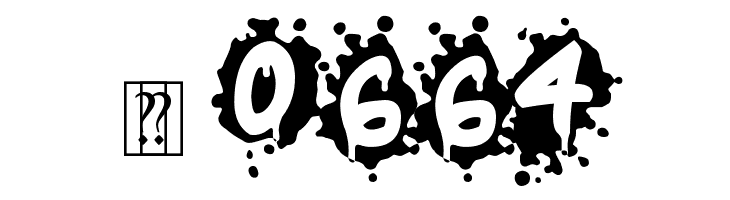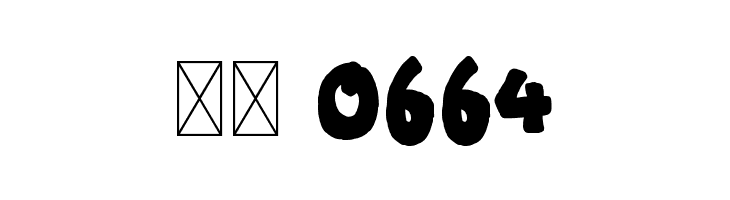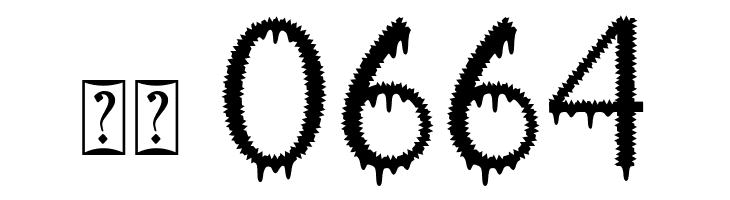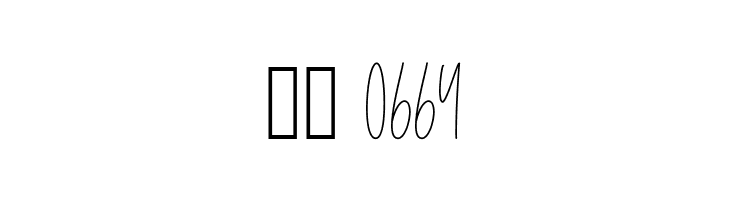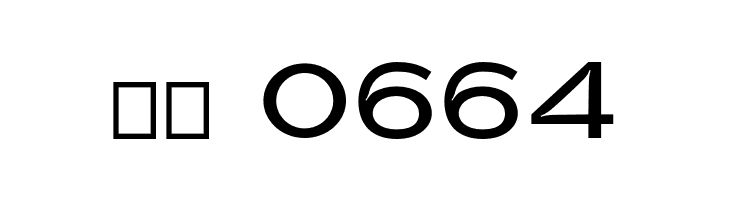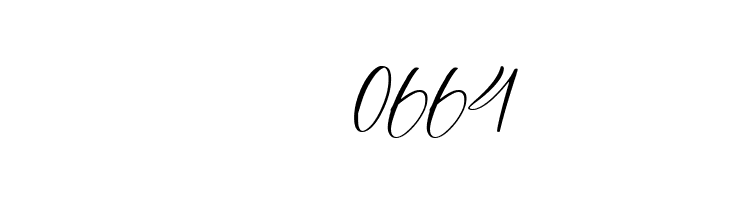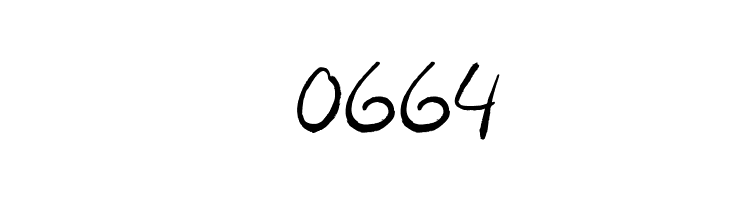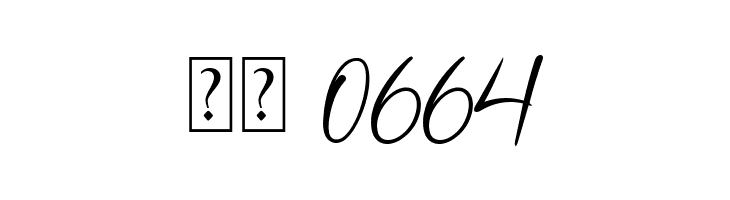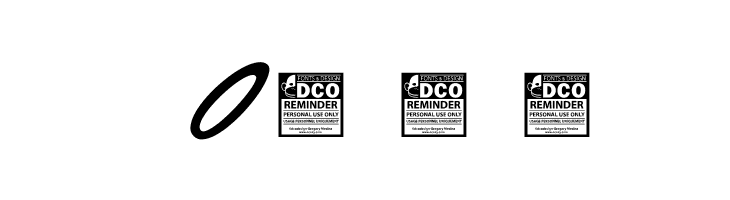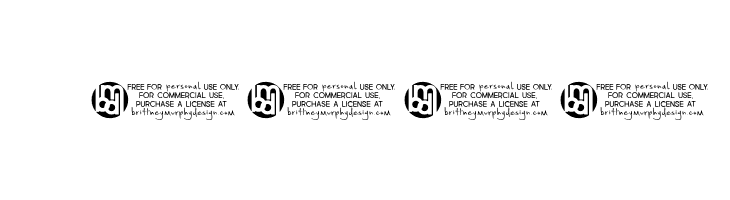
• Spiky Frog Graffiti
A bold, edgy graffiti-style font with sharp, angular shapes.
• Spiritual Lightning
A dynamic, handwritten font with expressive strokes and a fluid style.
• Spooky Adventure
A jagged, dripping font ideal for spooky themes.
• SPOOKY BLUEST
A bold, playful font with a spooky, hand-drawn style.
• Spooky Fright
A bold, jagged, and playful font with a spooky, hand-drawn style.
• Spooky Hollow
A bold, jagged font with a spooky, horror-inspired design.
• Spooky Lucky Solid
A playful, bold, and hand-drawn font with rounded, irregular characters.
• Spooky Mistery
A whimsical, handwritten font with tall, narrow letters and playful strokes.
• Spooky Party
A playful, whimsical font with a spooky flair and unique curves.
• SPOOKY TOMB - Personal Use
A spooky, tombstone-themed font with a playful, hand-drawn style.
• Spooky Zombie
A playful, spooky font with swirling patterns and eerie textures.
• Spooky*Mummy*Letters
A whimsical, mummy-themed decorative font perfect for Halloween projects.
• Spooky*Witch*Letters
A whimsical font with letters held by cartoon witches, perfect for magical themes.
• SpookyHollow
A bold, spooky-themed font with jagged edges and an eerie style.